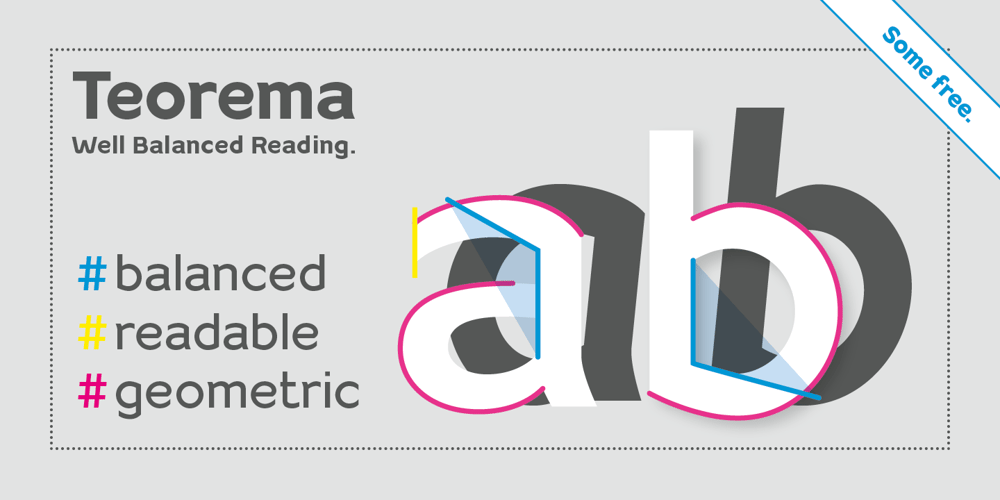
Teorema Sans
Teorema Sans font
Teorema Sans Font Family was designed by Filippo Salmina and published by FSdesign-Salmina. Teorema Sans contains 24 styles and family package options. Teorema. Well balanced Reading.Looking for a geometric yet flexible character? Teorema typeface combines different geometric shapes, according to a pragmatic approach that favors flexibility and ease of use. The font is distinguished by the contrast between perfectly circular shapes, and other, more angular ones in search of a formal balance aimed at optimizing the recognizability of the characters and finally the legibility of the text. Worthy of a geometric “theorem”? Try Teorema for free. Download a free version of Teorema Regular and Bold with a reduced character set. Check it out!